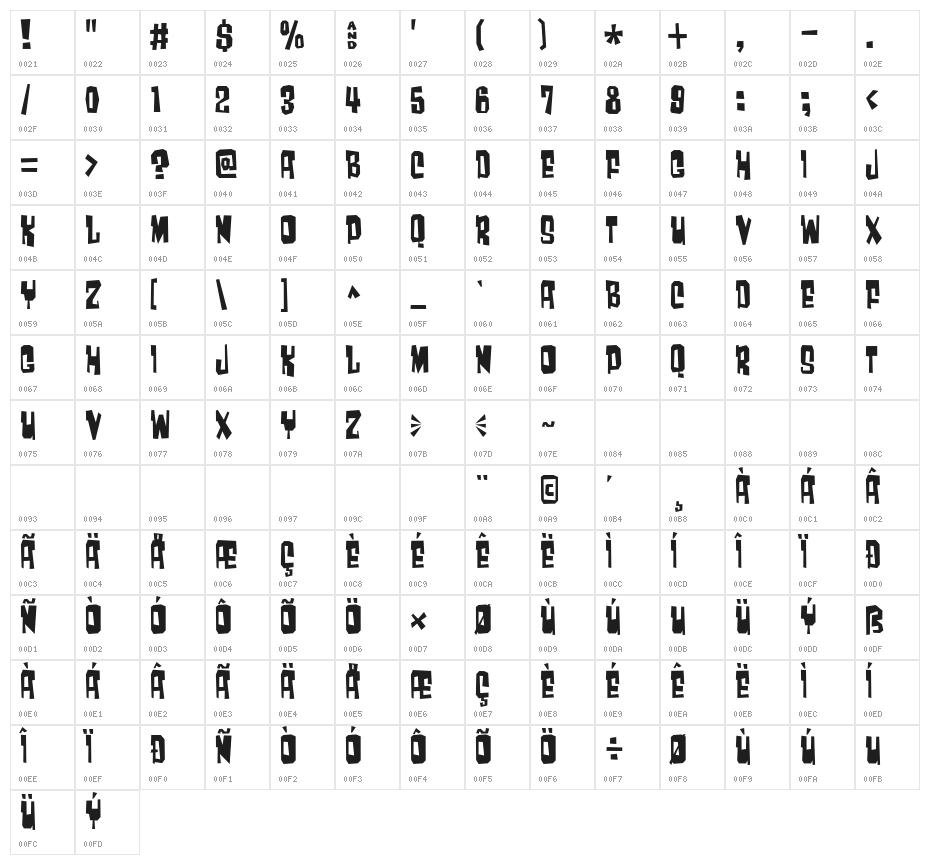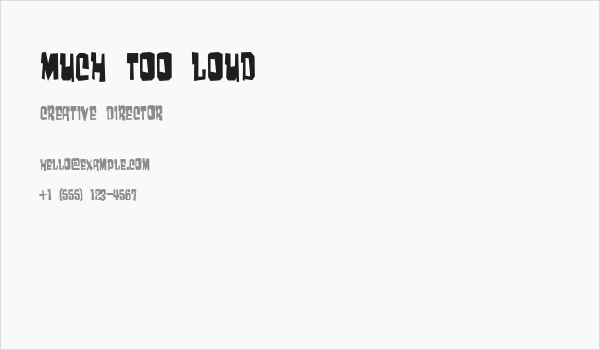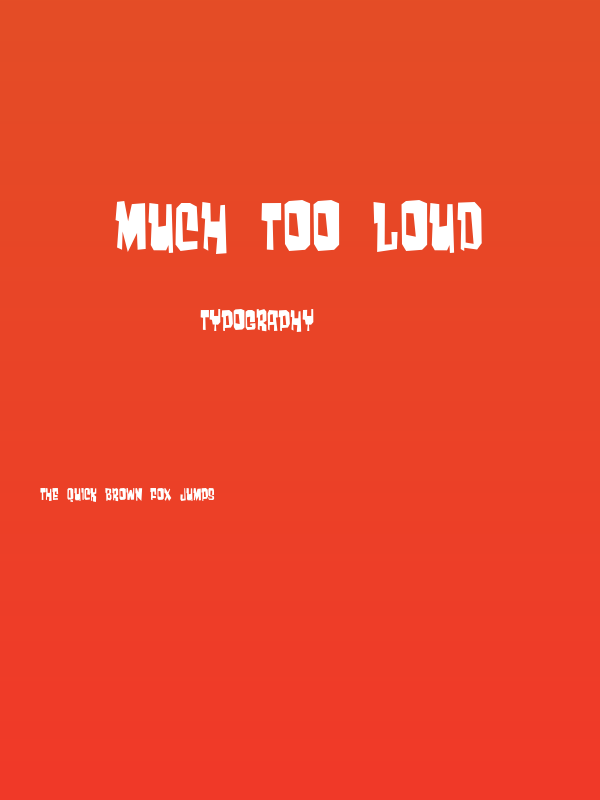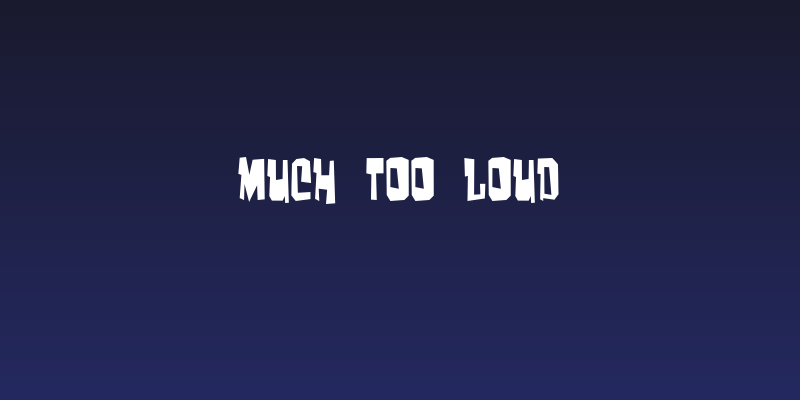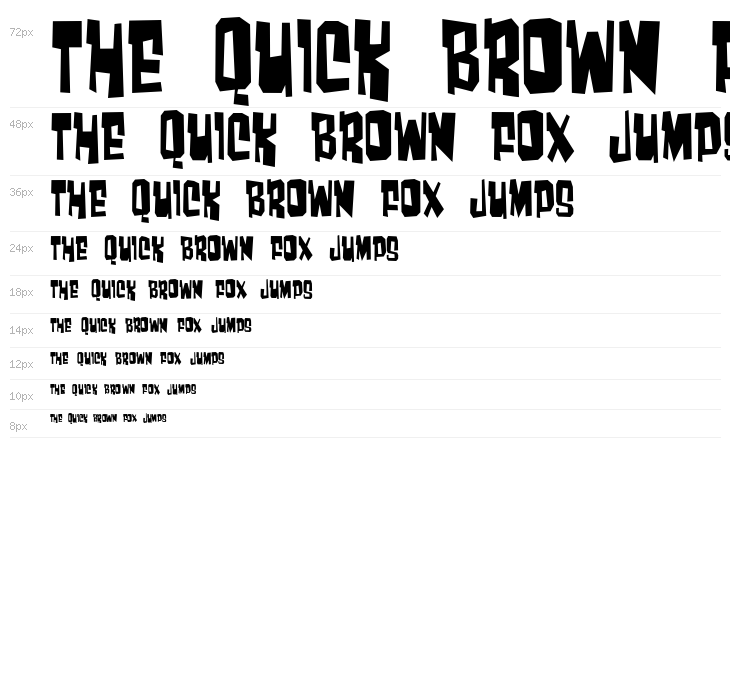
Much too loud Font
Much too loud Description
This font features a bold and dynamic design with a strong presence. The characters are angular and geometric, giving them a modern and edgy appearance. The uppercase and lowercase letters maintain a consistent style, with sharp edges and a slightly condensed form. The numbers and special characters follow the same bold and striking aesthetic, making them stand out. This font is perfect for projects that require a loud and impactful visual statement, such as posters, headlines, or branding materials. Its unique style ensures that it captures attention and leaves a lasting impression.
| Proposed Projects | Ideal for posters, headlines, branding, and any project needing a bold visual impact. |